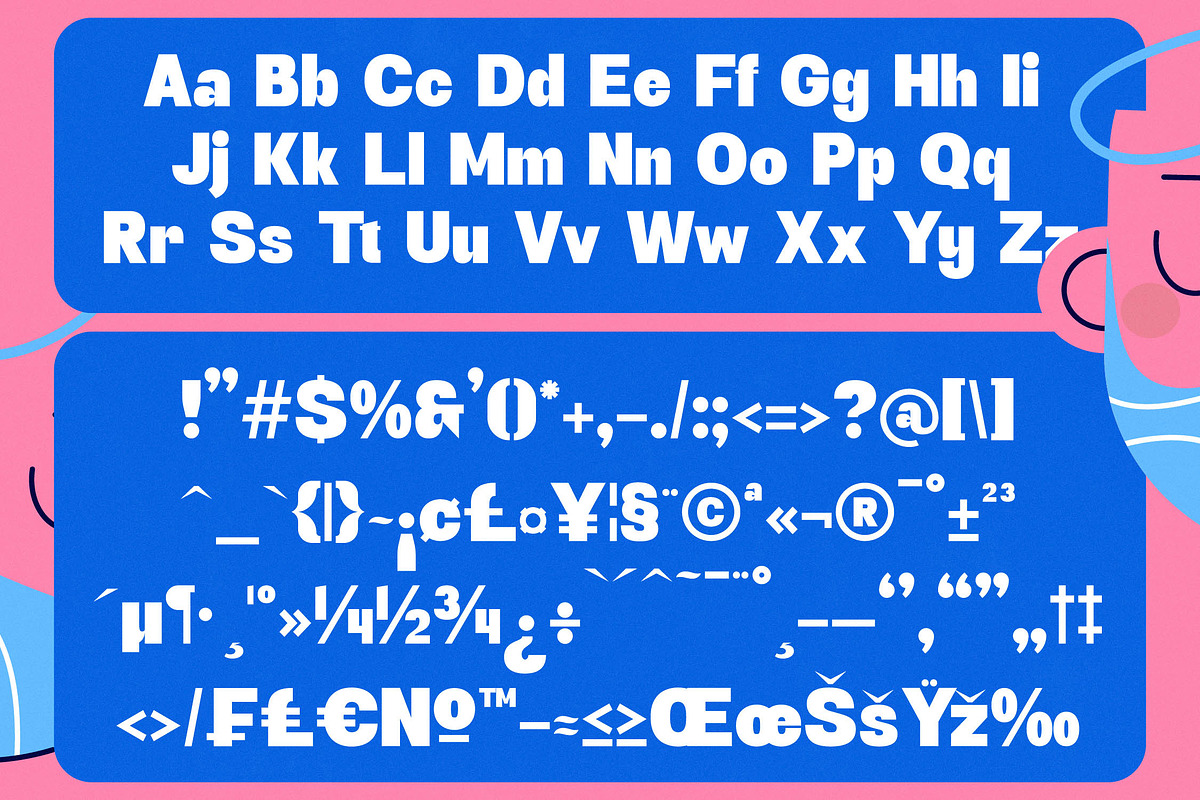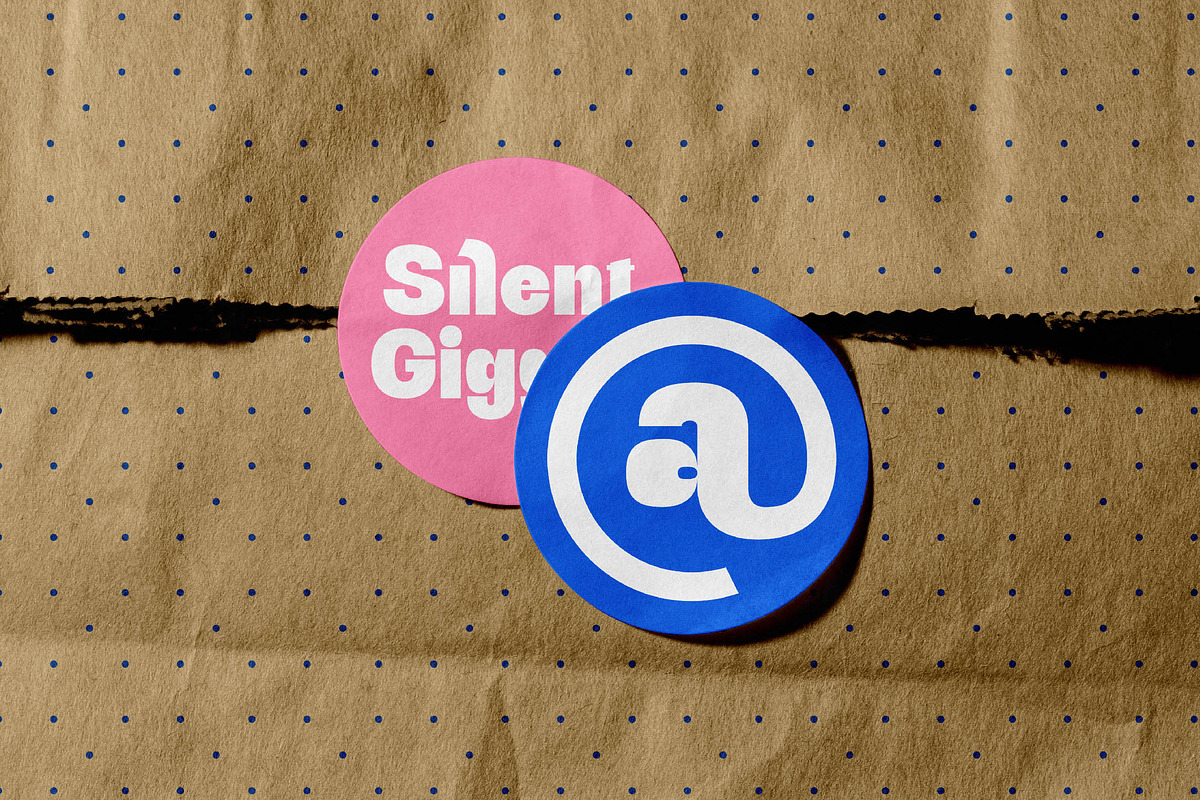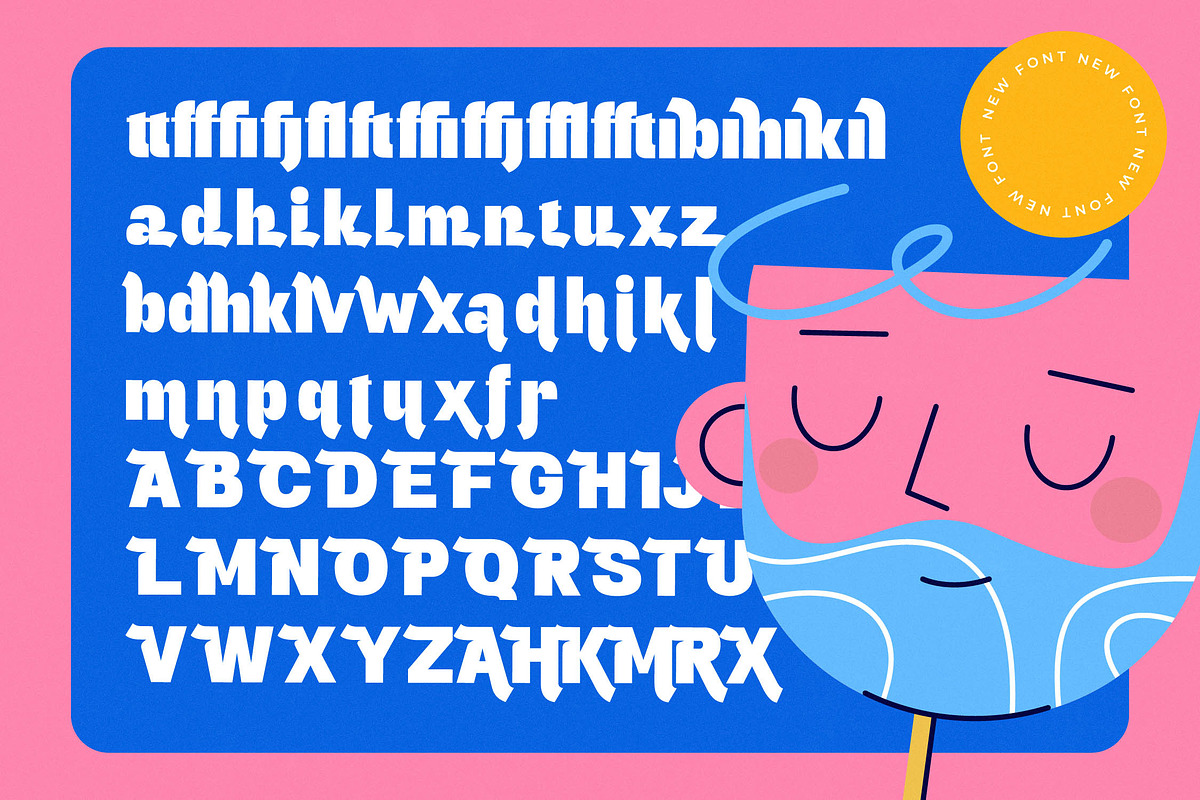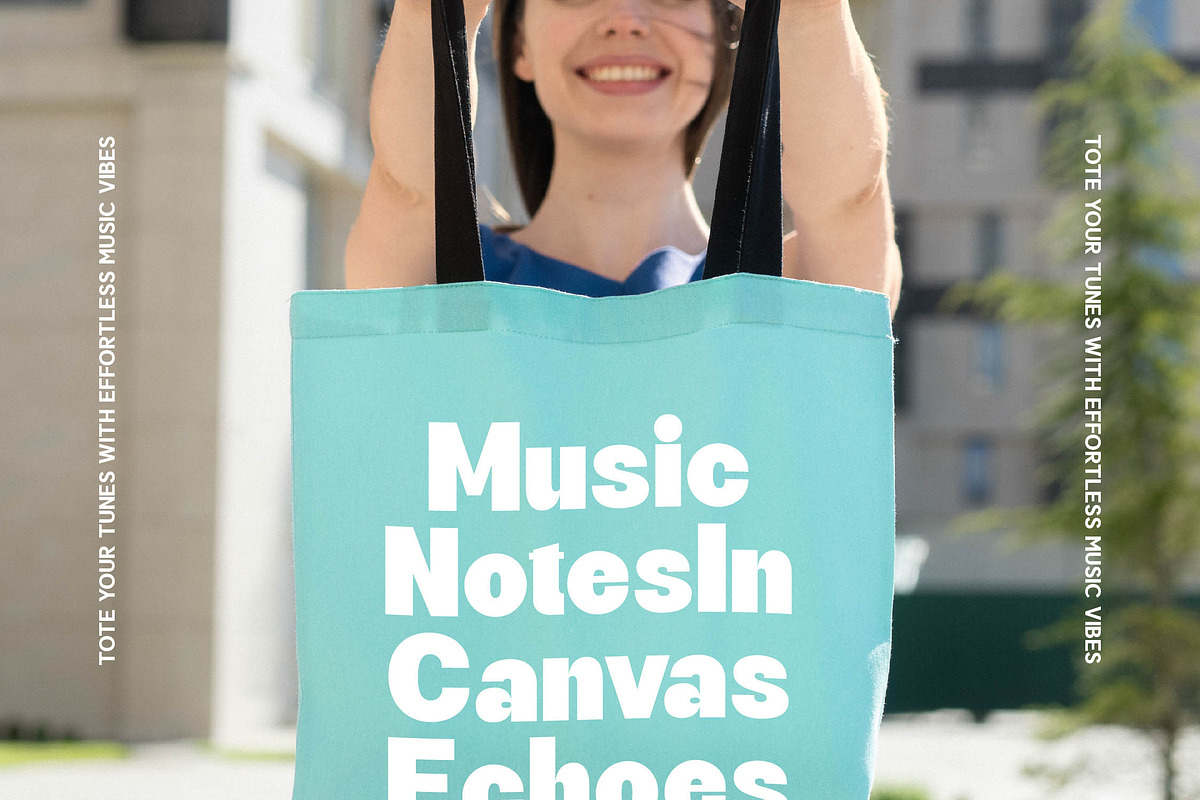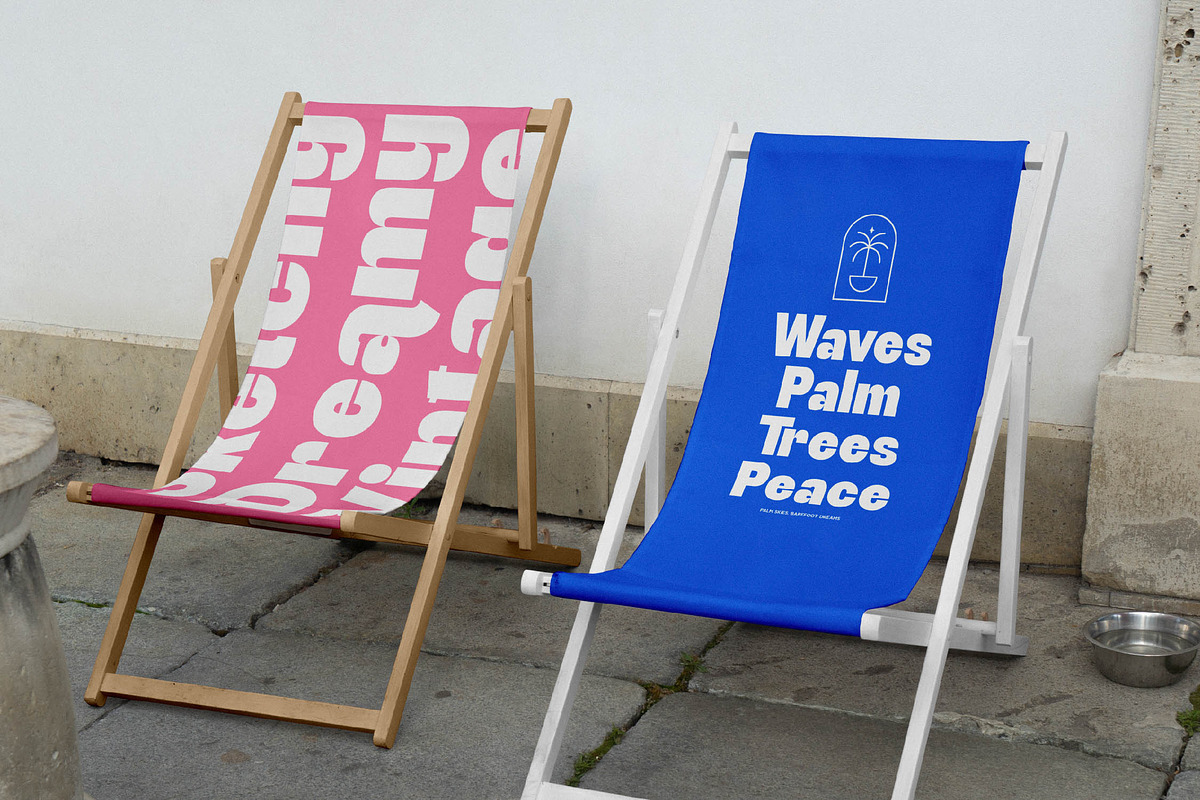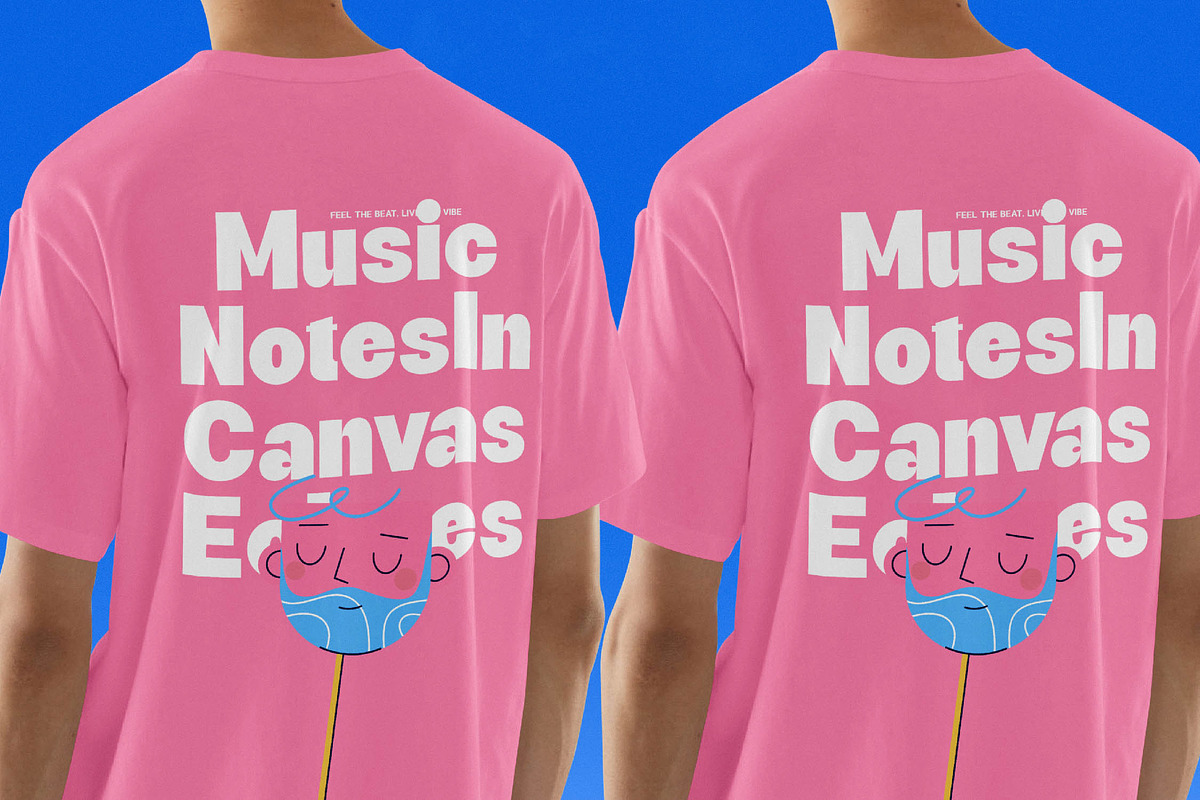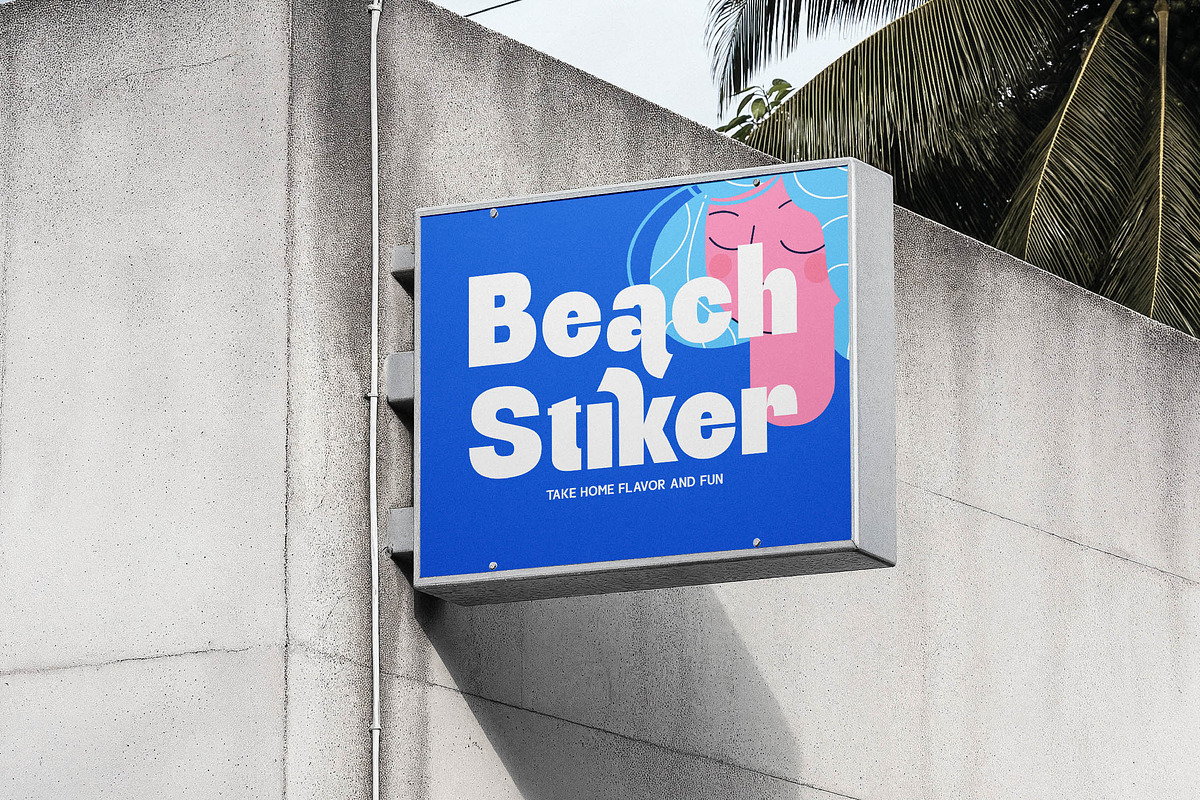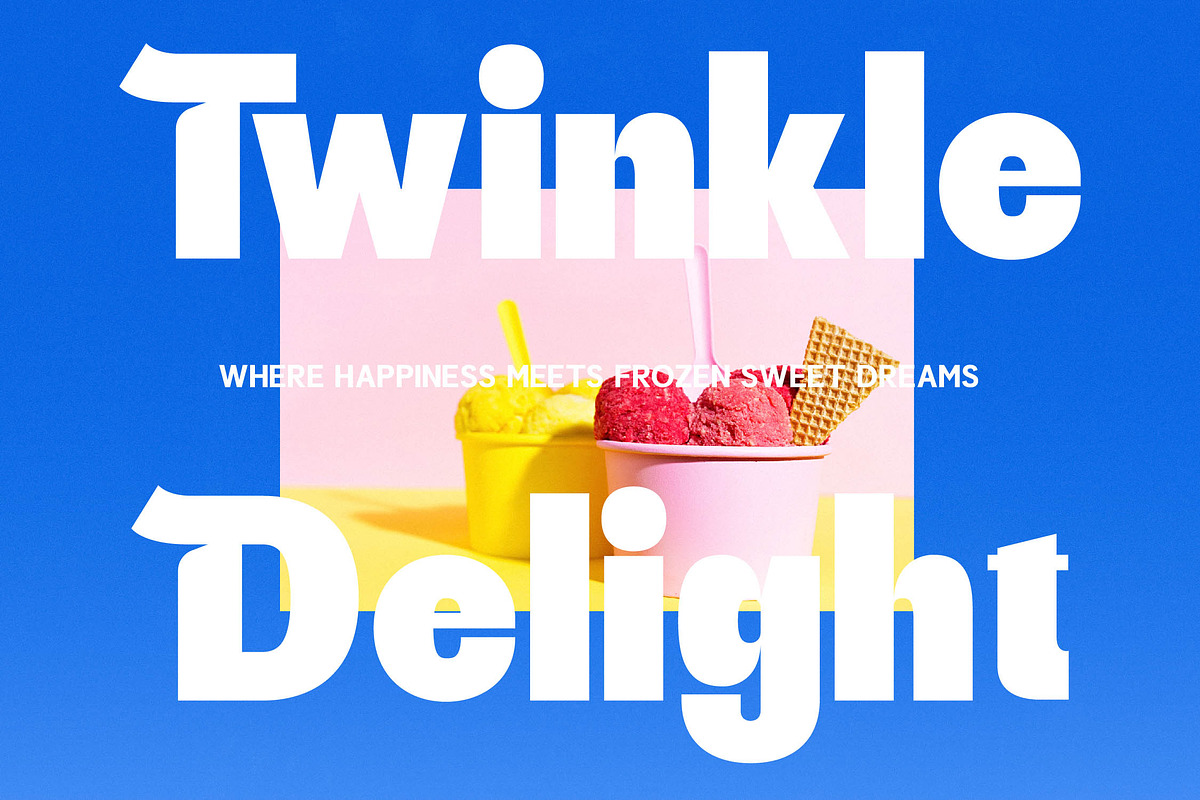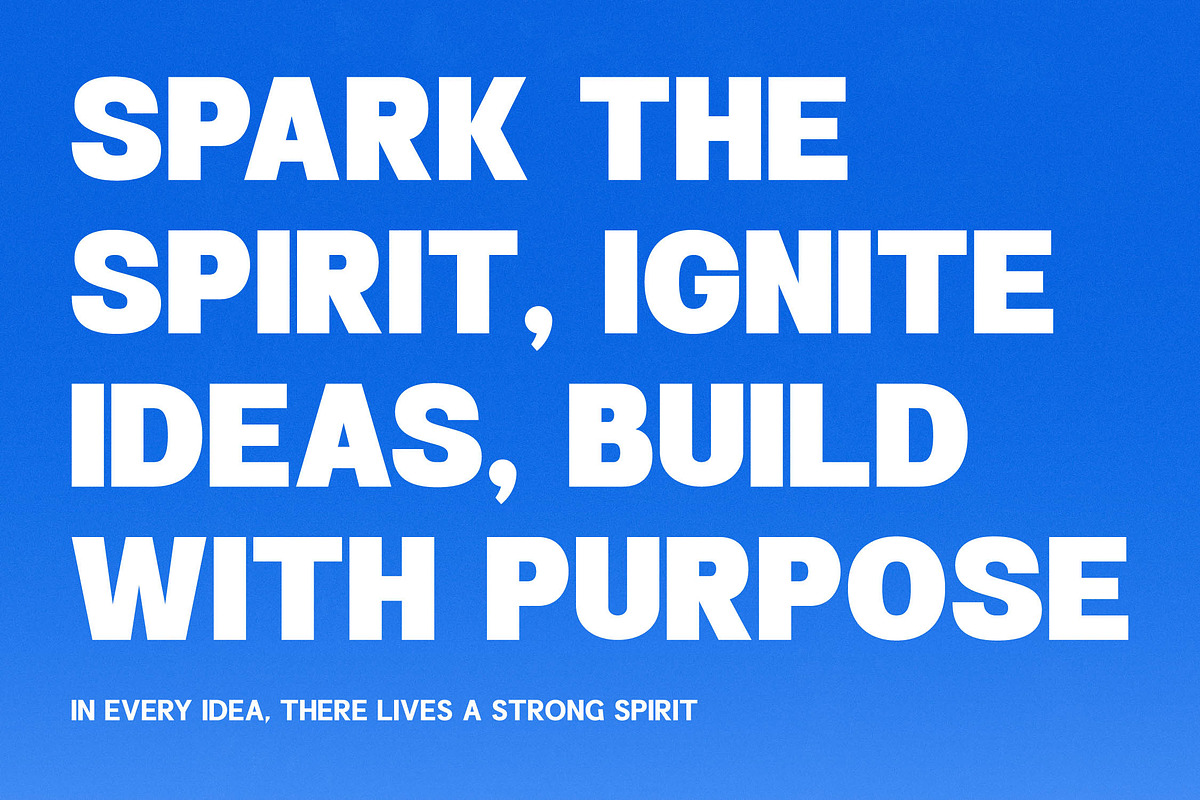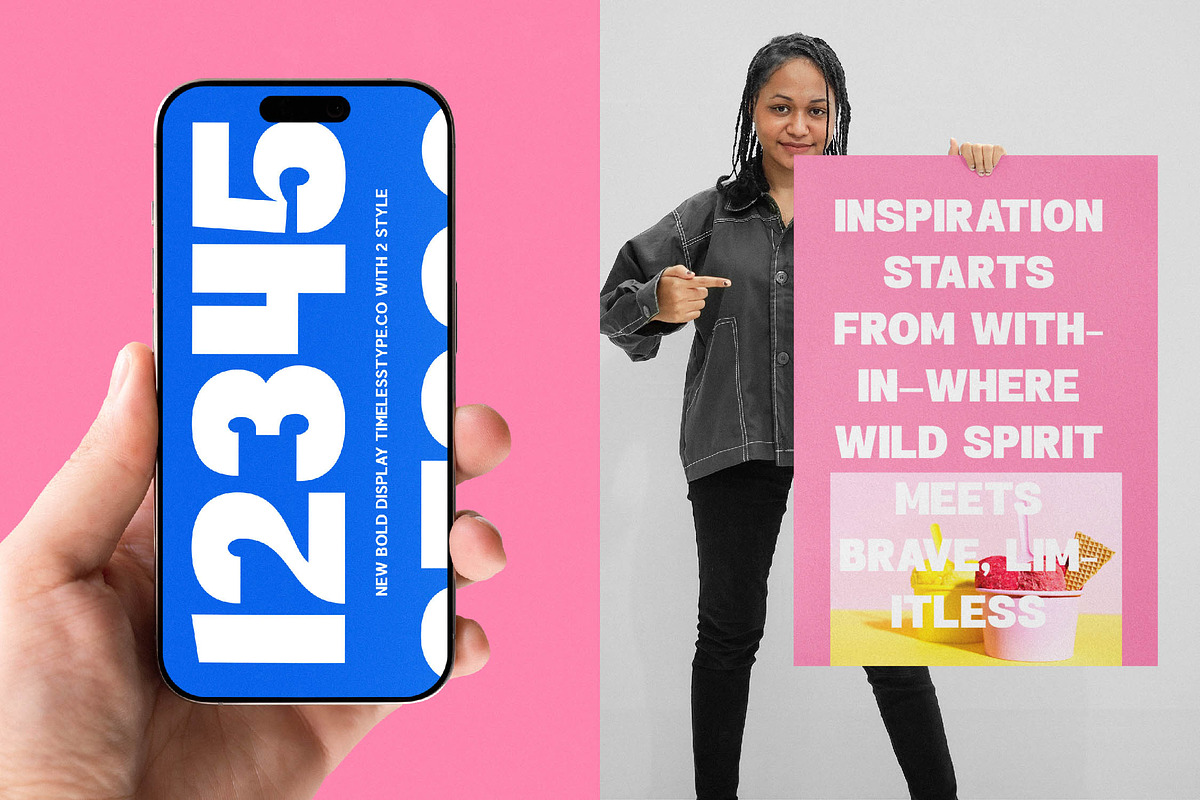
Twilight Modern Display Serif
Elevate your creative vision with Twilight, a typeface designed to command attention and evoke a sense of modern wonder. This bold display serif balances sharp elegance with a playful soul, making every character a statement of art.
Inspired by the rhythmic dance of light and shadow at dusk, this font draws from classic calligraphic roots while leaping into the future. It captures a vibrant, whimsical atmosphere that feels both timeless and undeniably fresh.
With its striking high-contrast serif architecture and bold weight, Twilight offers a unique modern serif display experience. It is the ultimate editorial font for those seeking a high-end luxury typography look that guarantees an immediate branding impact.
As the modern serif trend continues to dominate high-end aesthetics, this typeface fits perfectly into the world of character-driven typography. It satisfies the demand for editorial display fonts that feel curated, bespoke, and full of personality.
This versatile powerhouse is ideal for high-concept logo design and comprehensive branding projects that need to stand out. From high-end fashion spreads and luxury packaging to sophisticated wedding stationery and editorial layouts, it adapts to your most ambitious designs.
To give you complete creative control, this package includes a rich set of 14 ligatures and 67 alternates for truly custom text. It features full multilingual support and a wide array of international characters, plus decorative swashes to add that final touch of flair.
- Ligature 014 Alternate 067